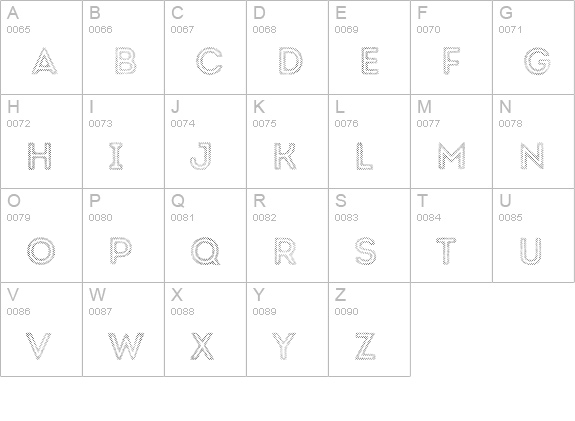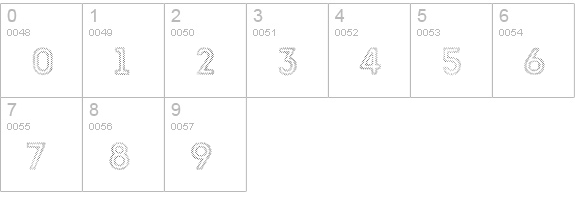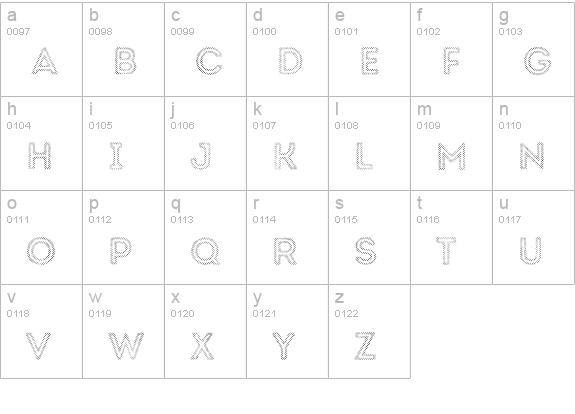
Intro Rust H1 Fill 2 Font Details
The Intro Rust H1 Fill 2 font is a bold and striking typeface that exudes a sense of strength and modernity. Its unique design features a filled-in style that makes a powerful statement in any design project. Perfect for headlines, posters, and branding materials, this font commands attention and leaves a lasting impression. What's even better is that this impressive font is available for free download at FontsMarket.com. Embrace the creativity and versatility of Intro Rust H1 Fill 2 to elevate your designs and make them stand out from the crowd. Unlock the potential of this eye-catching font and unleash your imagination with its bold and impactful presence.